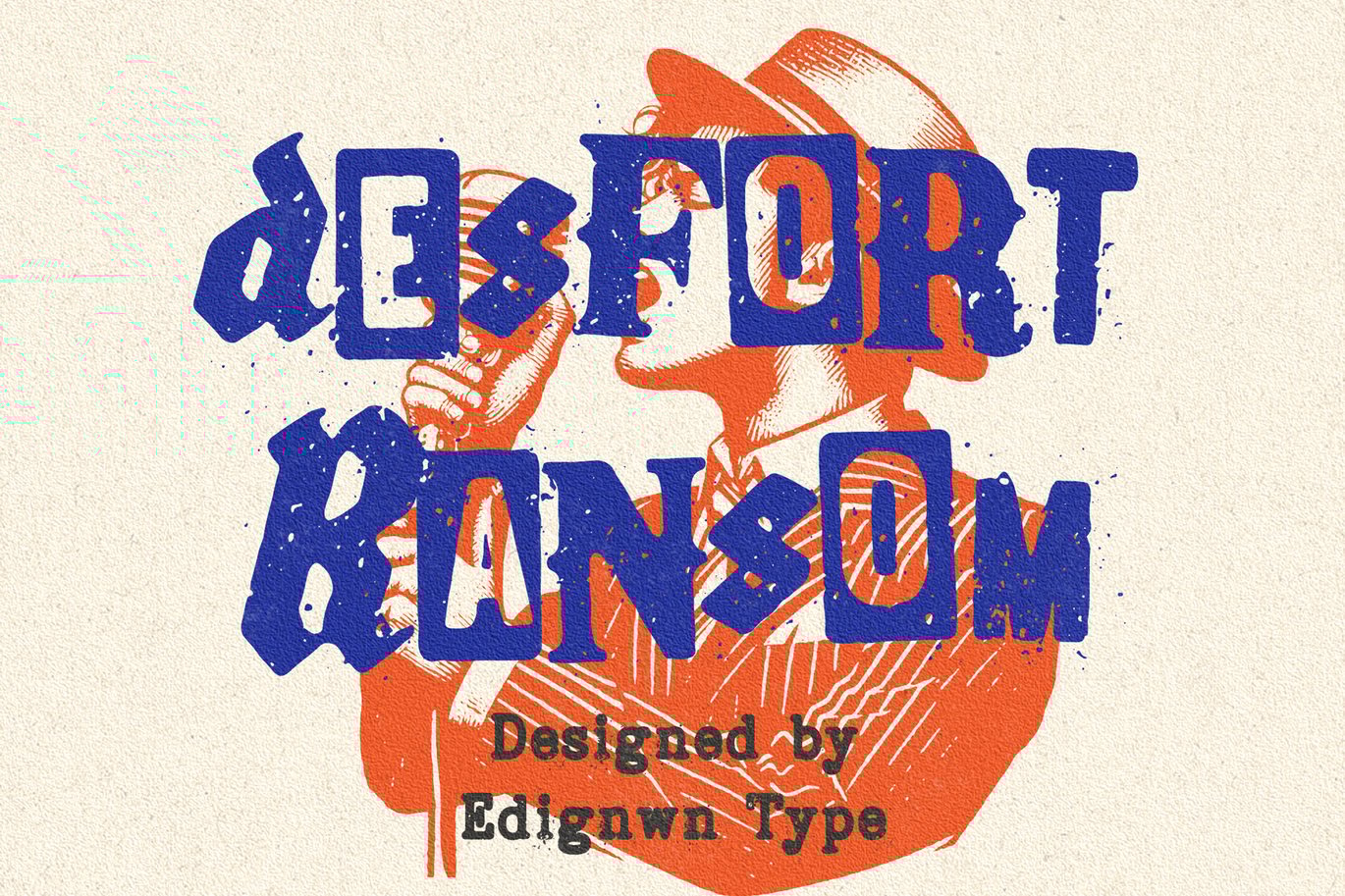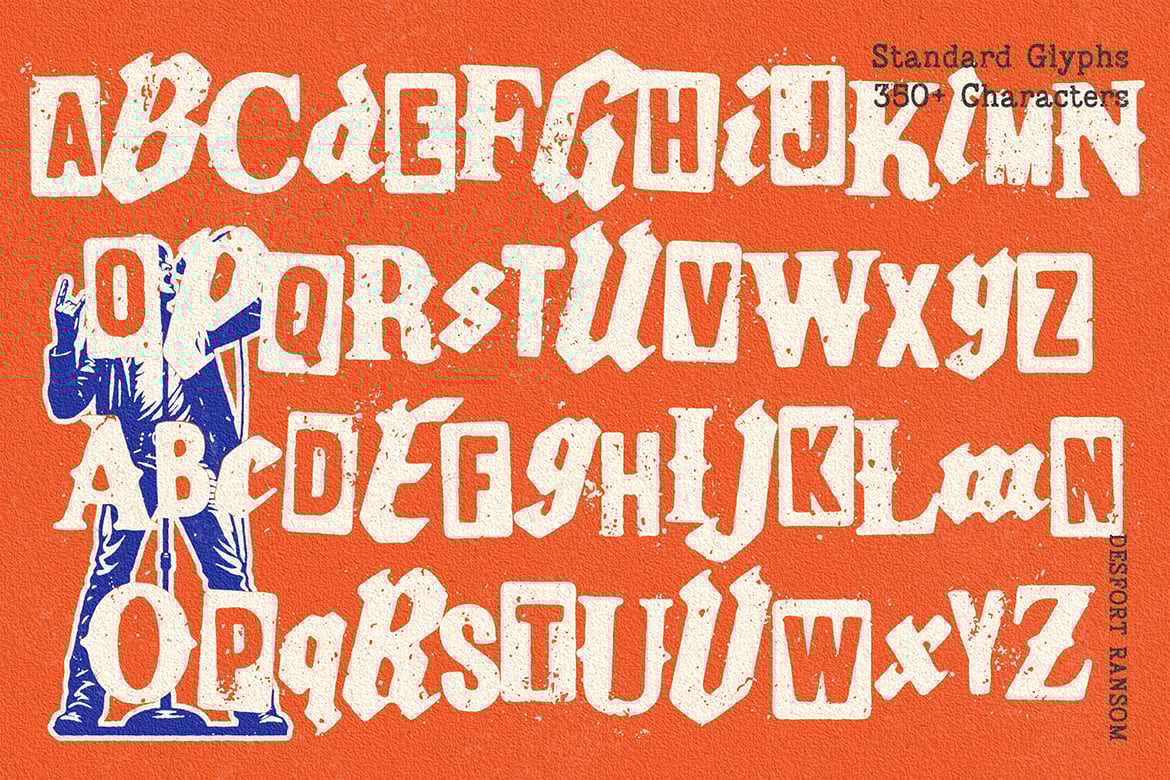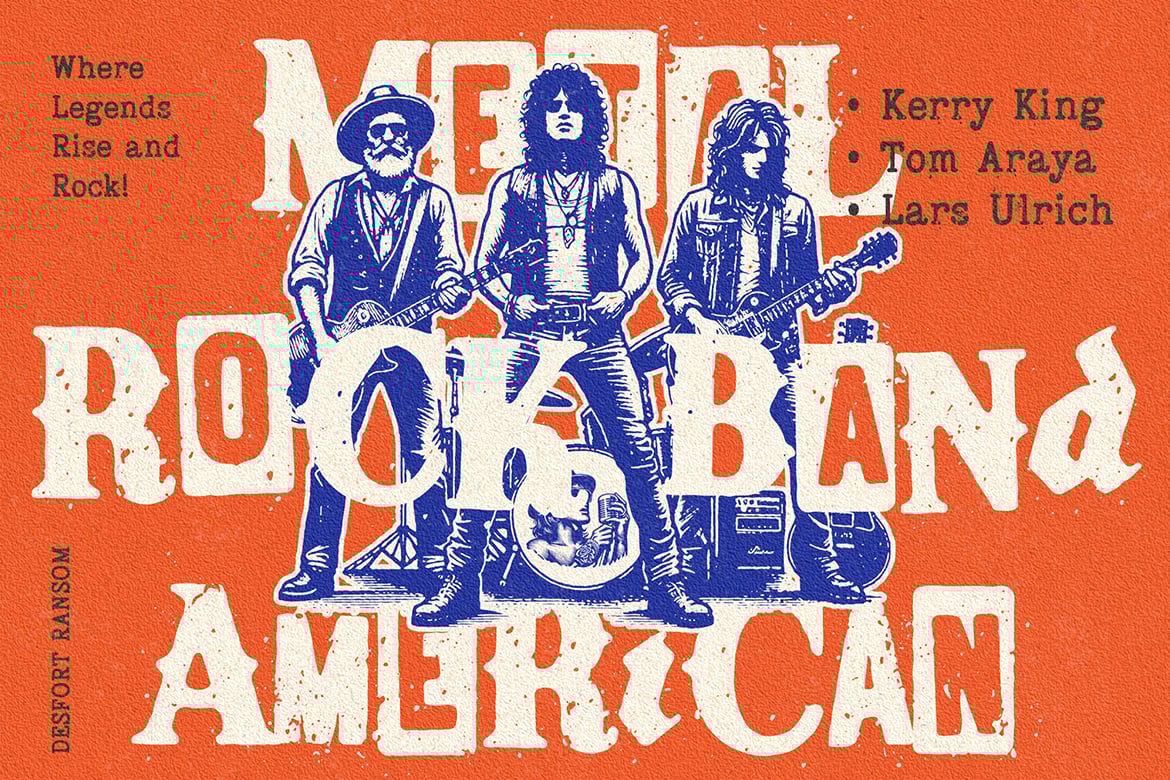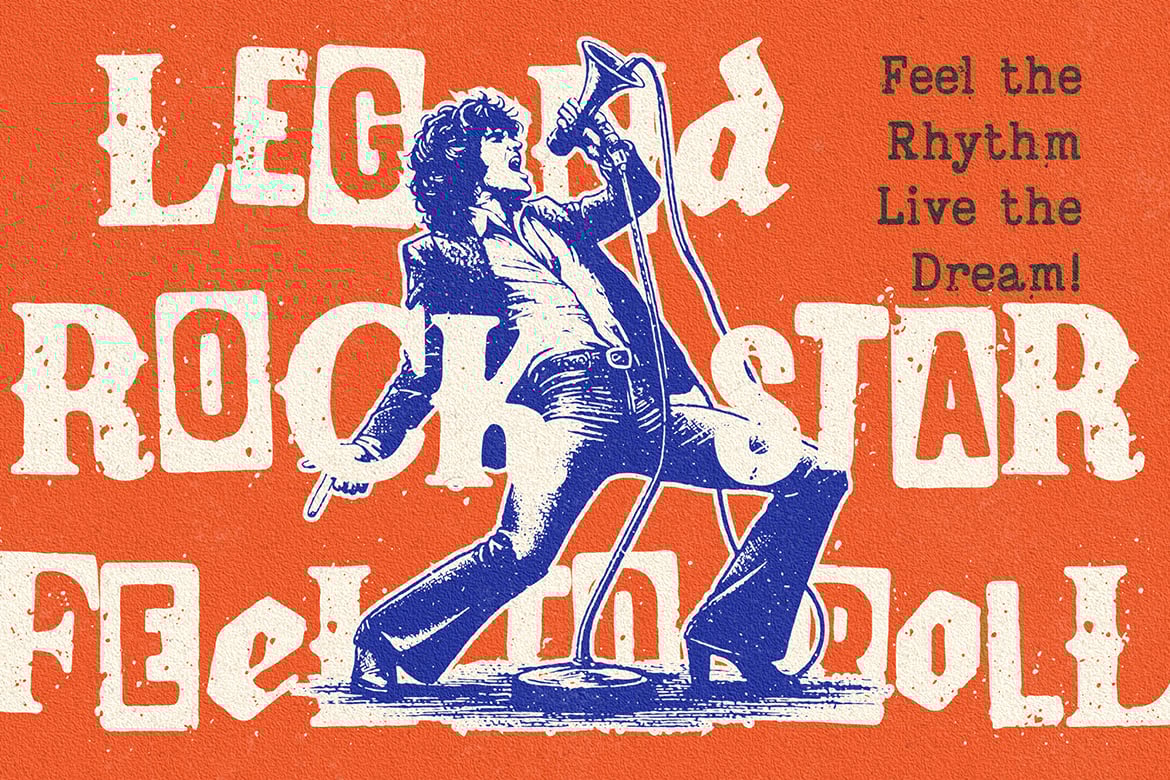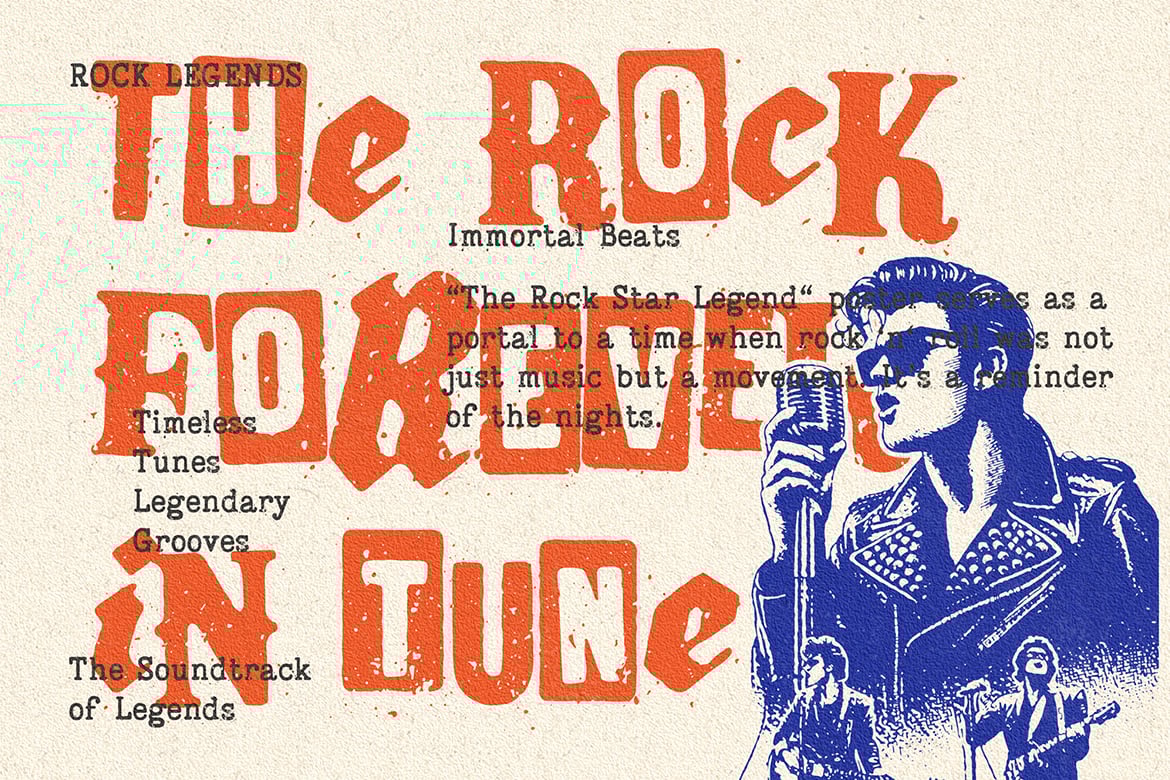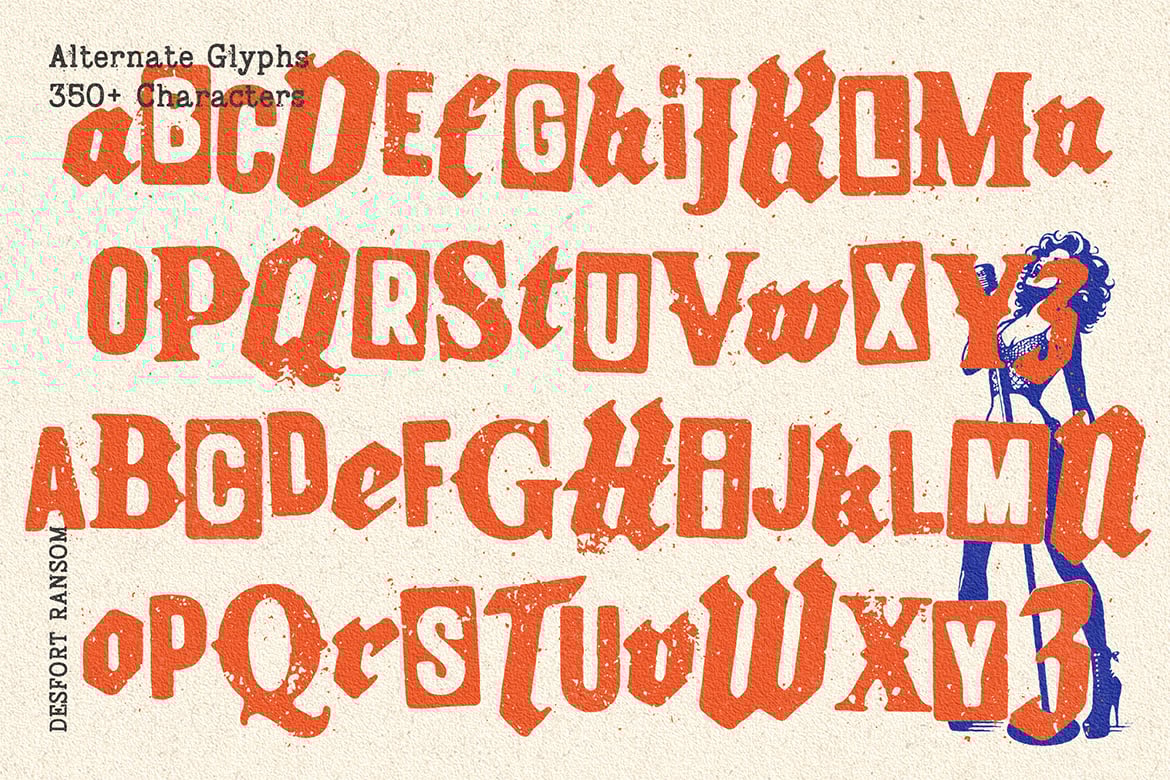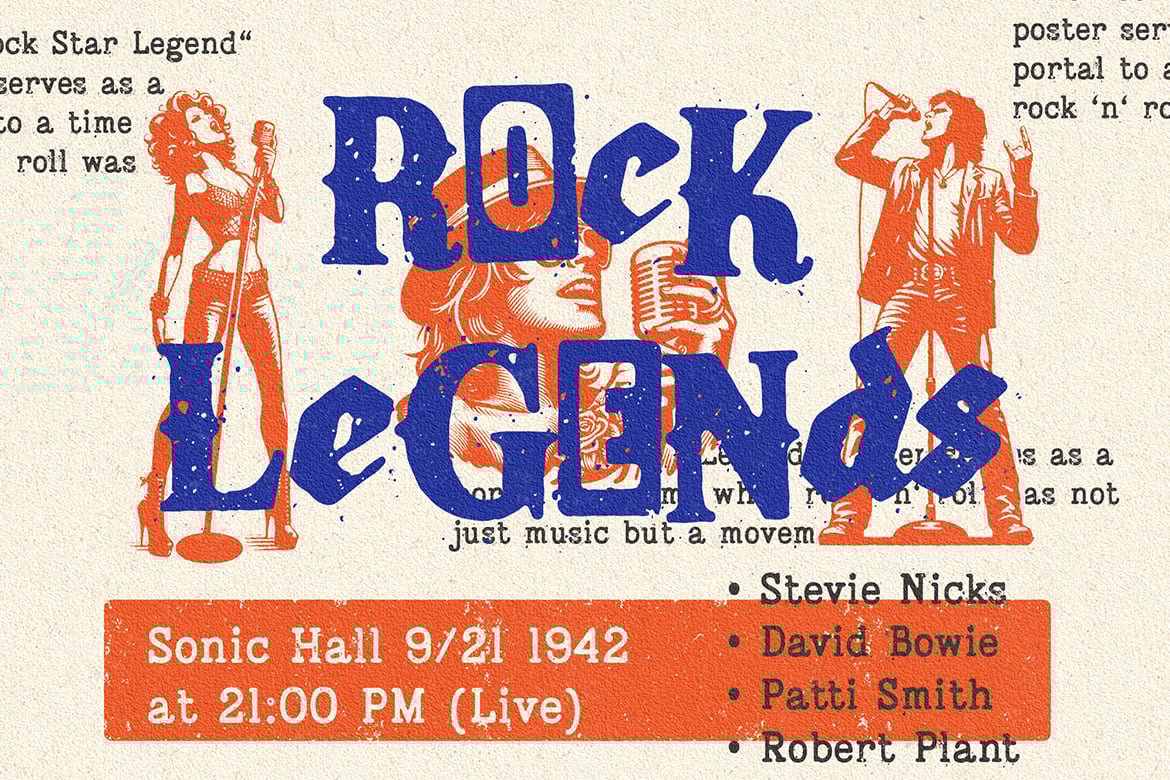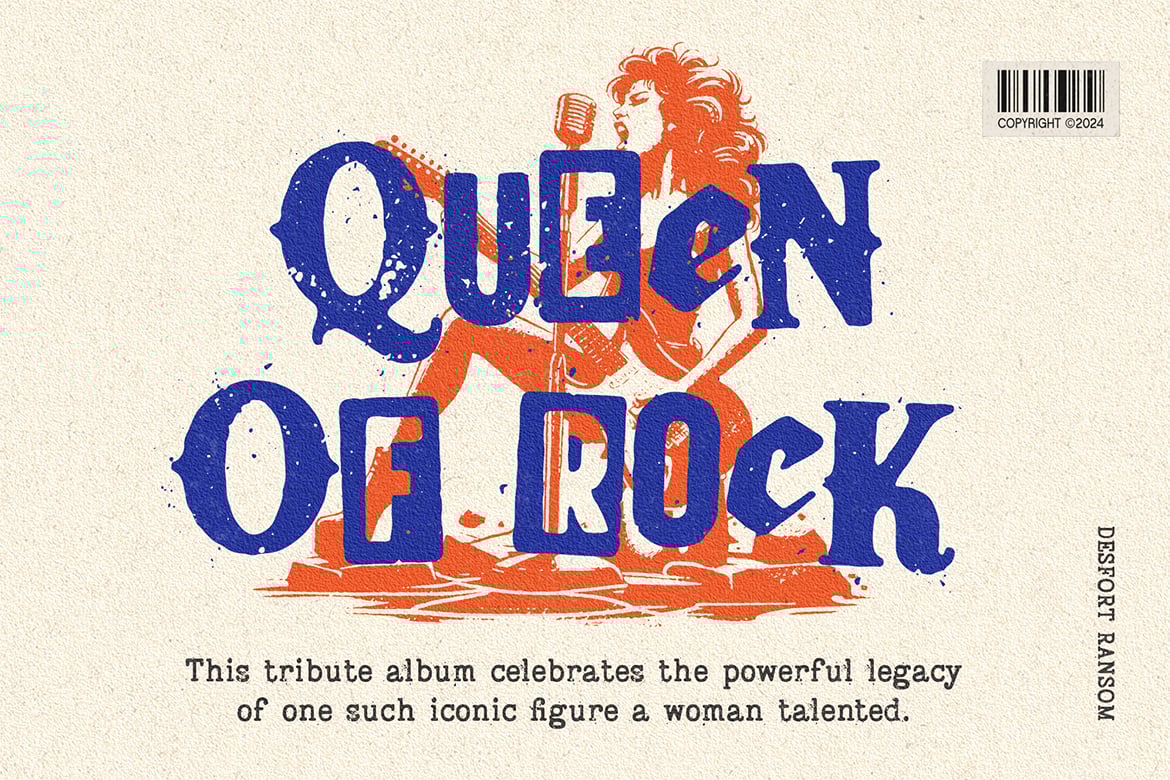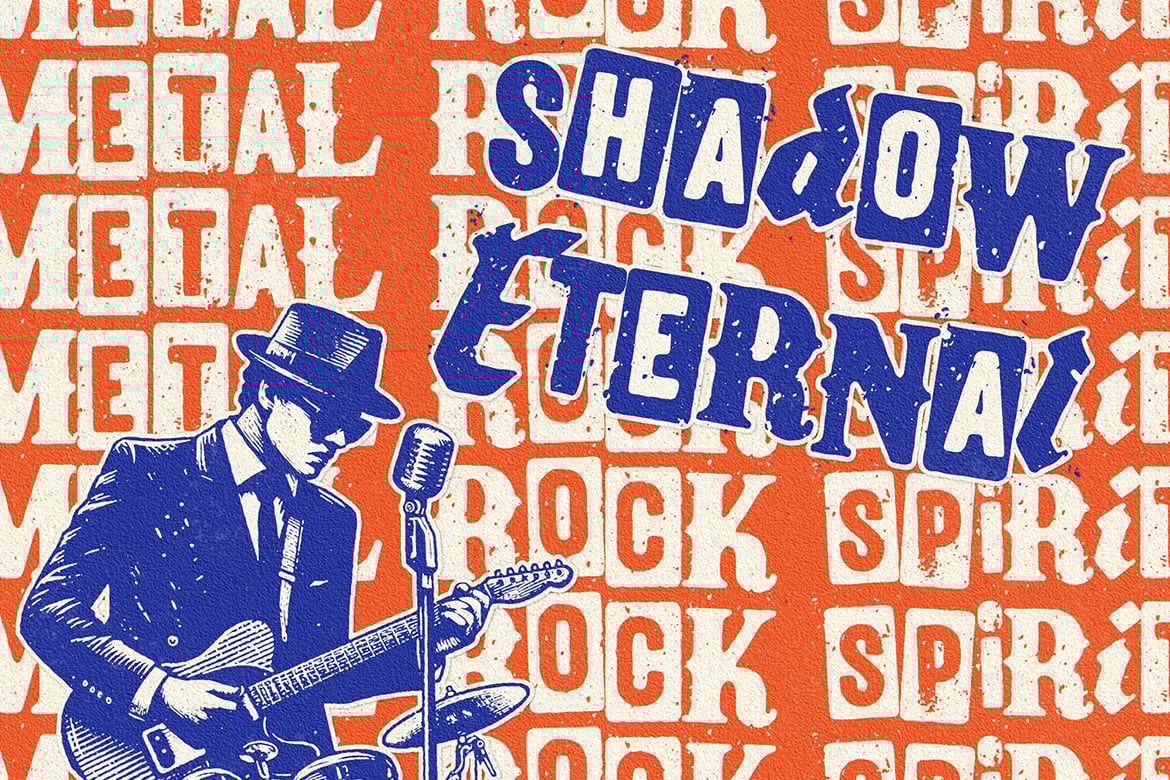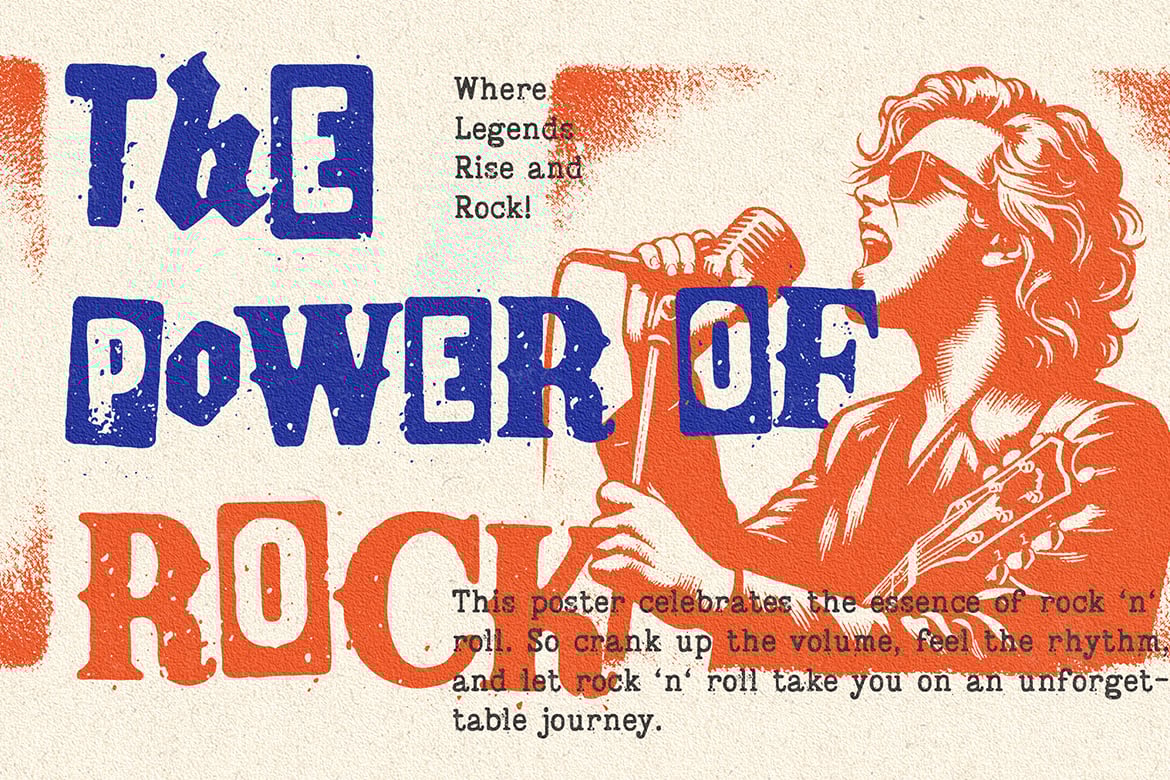
Desfort Ransom – Display Font
Desfort Ransom is a versatile rustic ransom font perfect for rock and metal music themes. With 4 unique alphabet sets (A-Z, a-z, A_01-Z_01, and a_01-z_01), you can mix and match characters for the perfect look. Available in regular and rustic styles, this font is perfect for logos, branding, posters, and more. Bring your designs to life with the authentic feel of Desfort Ransom.